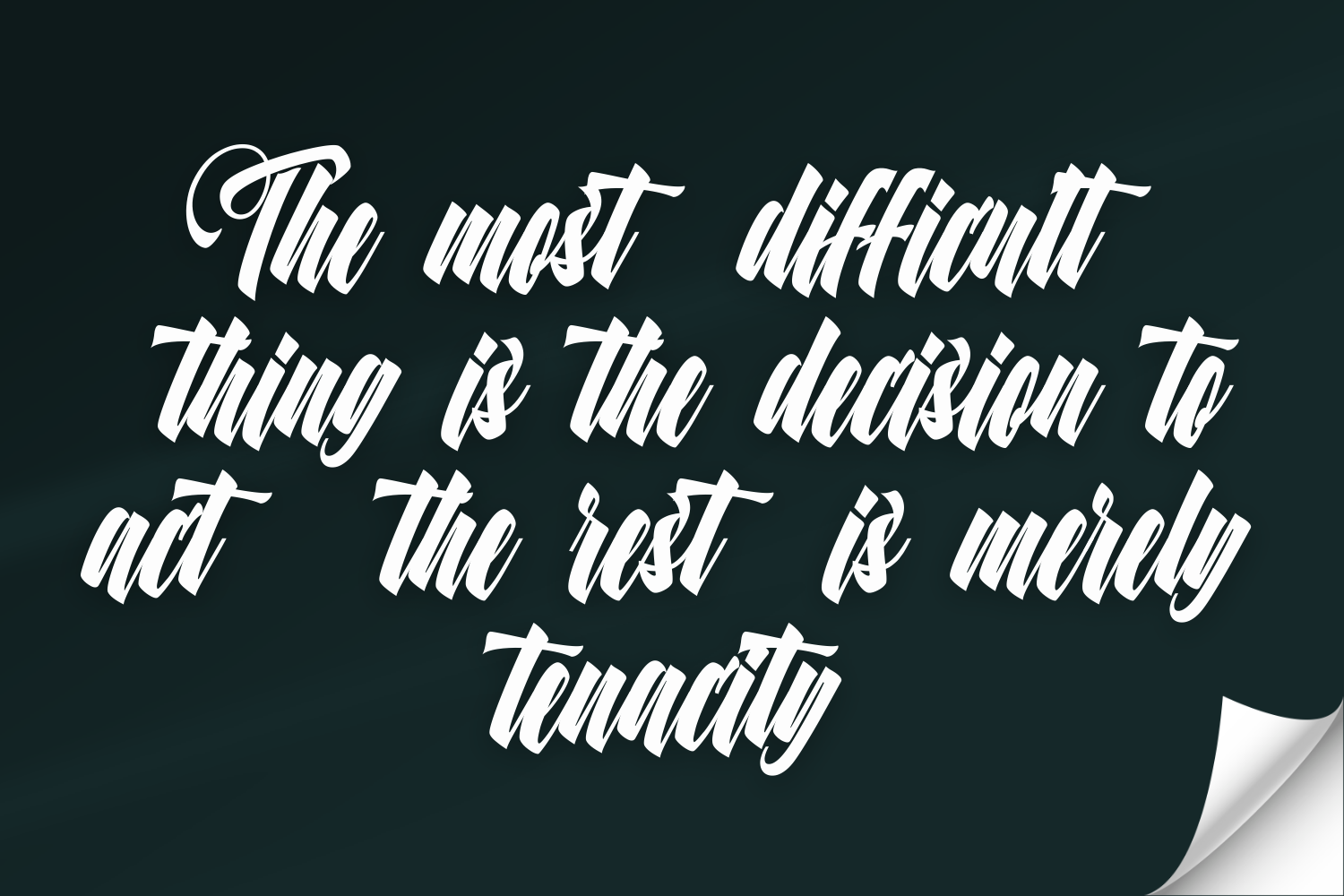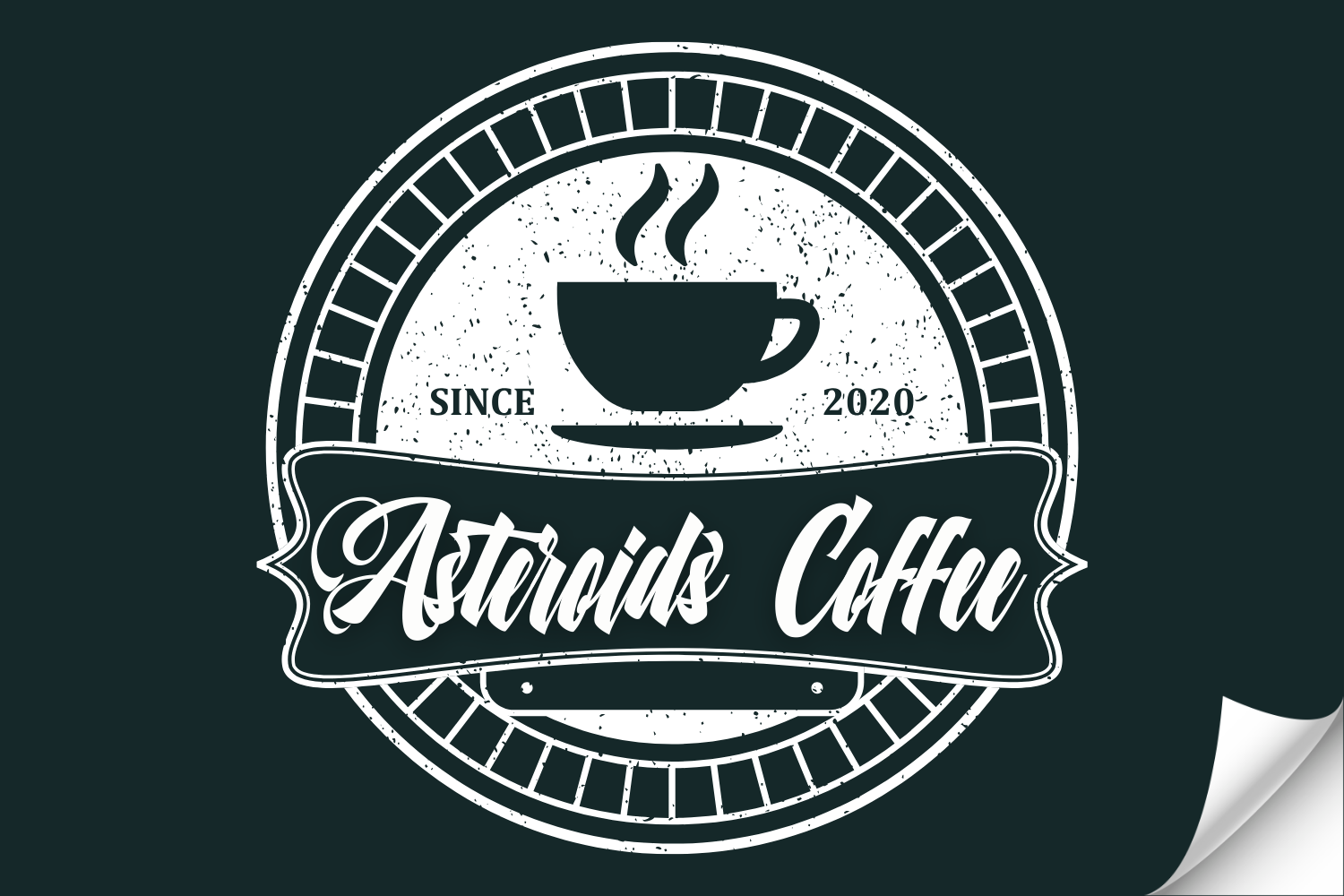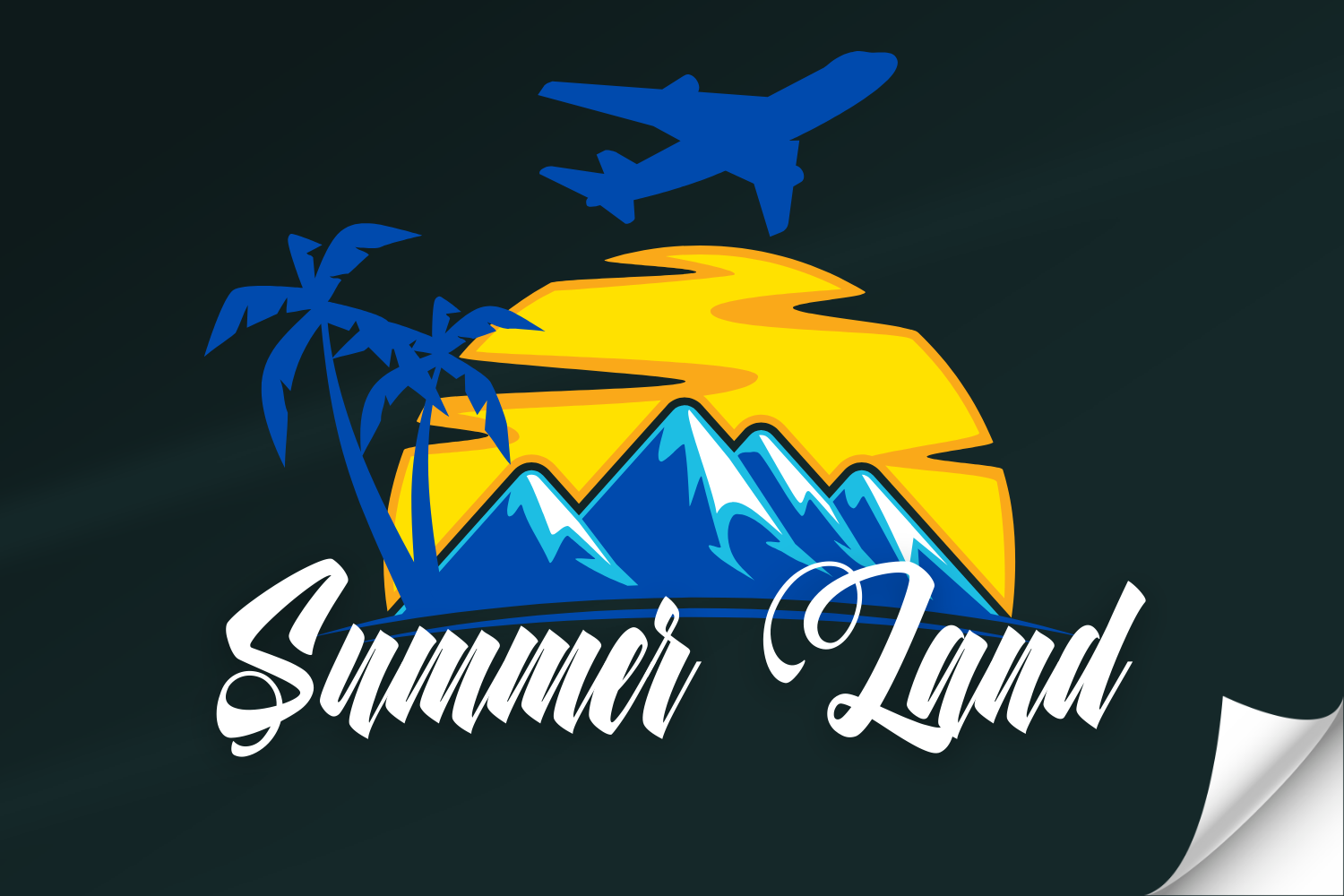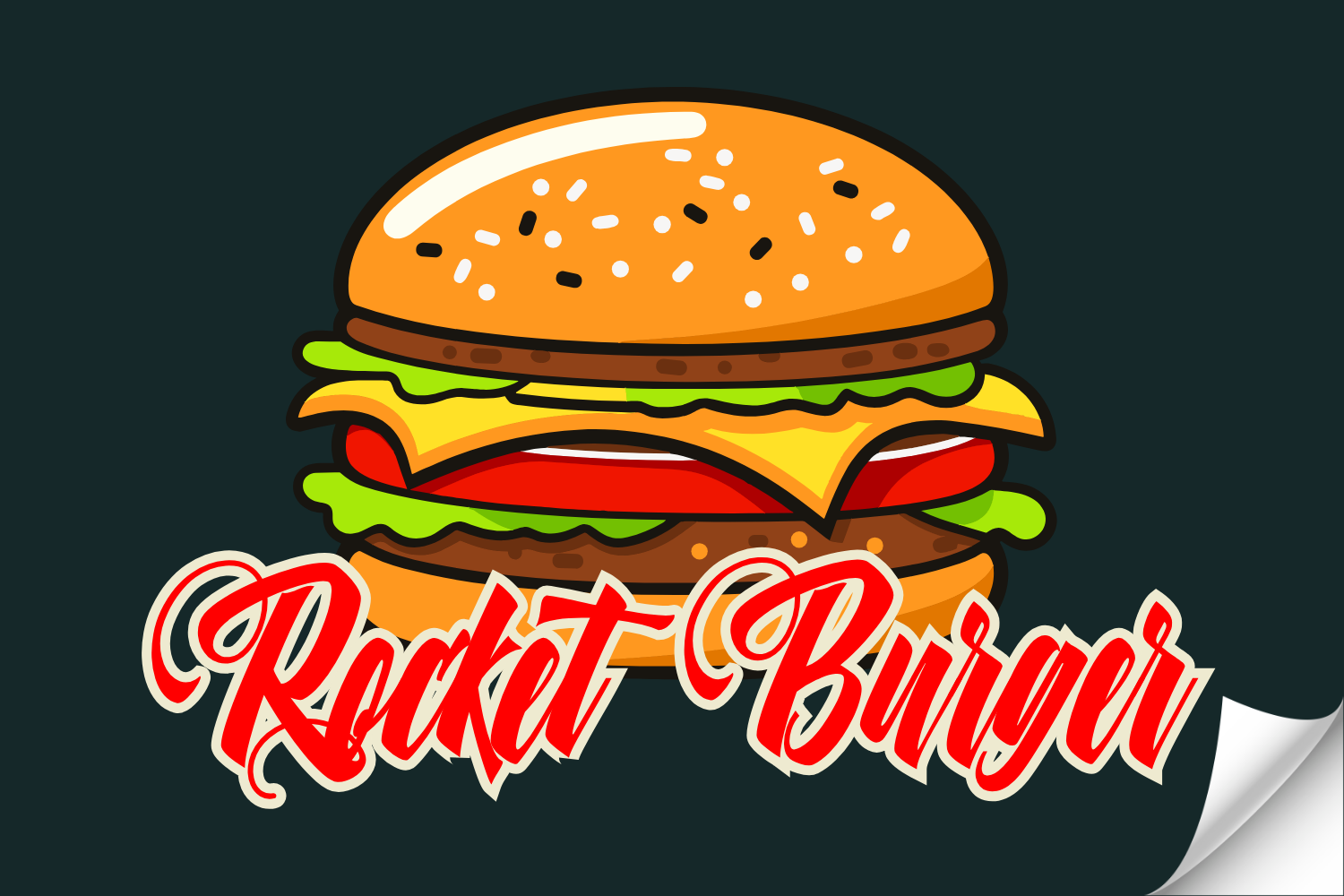
Rasettagin Font
Rasettagin is an elegant and artistic script font with flowing, handcrafted strokes and a luxurious charm. Its delicate curves and intricate details exude sophistication, making it perfect for branding, invitations, and high-end designs. With a balance of vintage elegance and modern refinement, Rasettagin adds a touch of romance and exclusivity to any creative project.